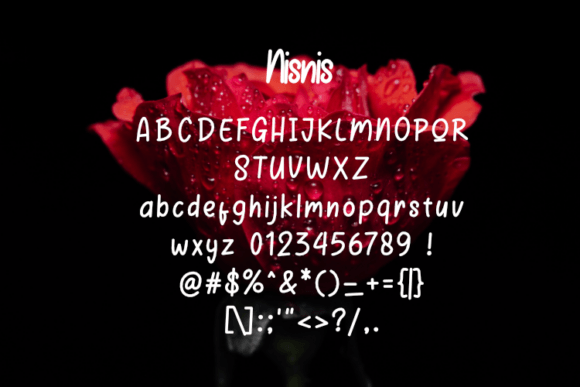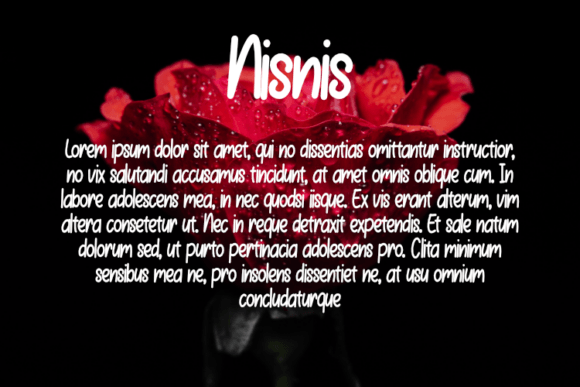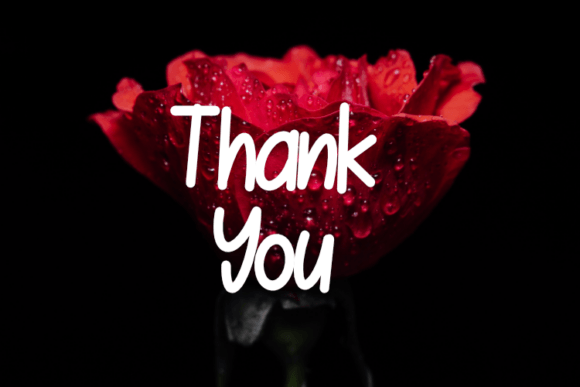
Introduction to Nisnis Font
Immerse yourself in the creative versatility of Nisnis, an elegantly designed font that seamlessly integrates with your design projects.
Perfectly adapted for apparel design, including sophisticated t-shirts and numerous other merchandise elements, Nisnis broadens the horizons for your artistic expression Its compatibility with all design software and provided in both otf and ttf file formats ensures effortless accessibility and usage.
Nisnis Font offers exceptional quality and versatility, making it a valuable addition to your design toolkit. Whether you’re creating for personal projects or commercial use, Nisnis Font delivers professional results.